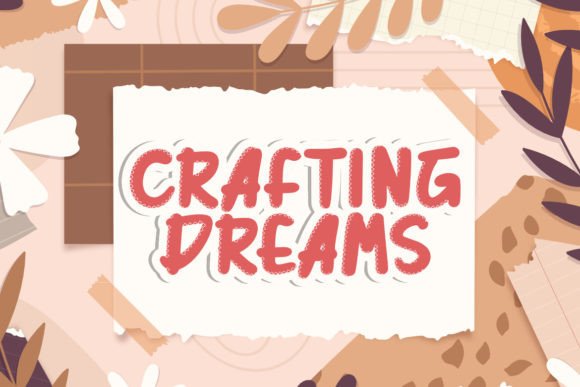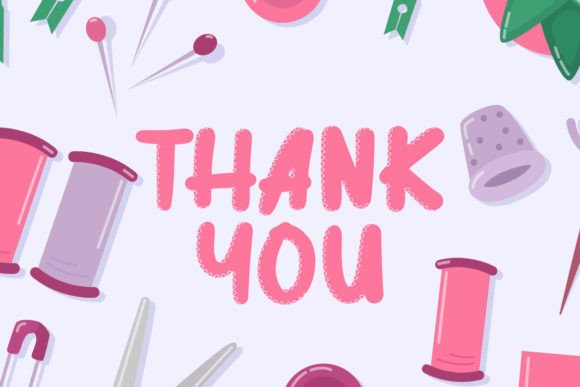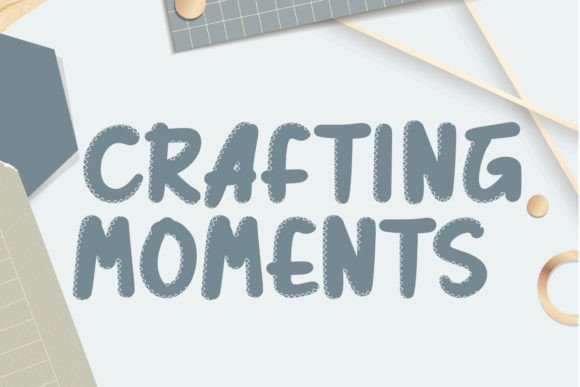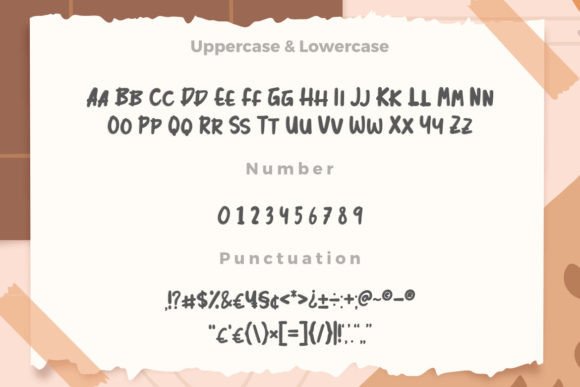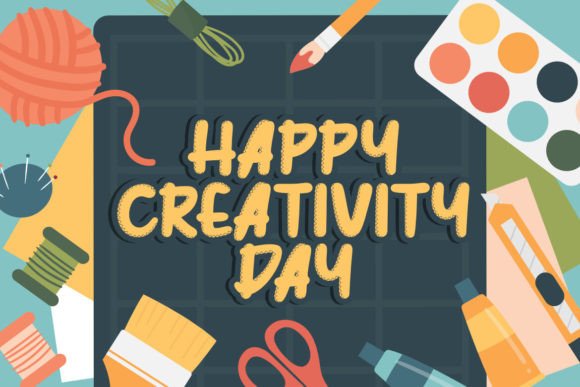
Introduction to Keenyo Font
**Keenyo Crafted Playful Font**, This font is made with a high premium quality level which you can use as flyers, quotes, posters, banners, packaging, merchandise, logotypes, and much more.
Key Features of Keenyo Font
Why Choose Keenyo Font?
Keenyo Font offers exceptional quality and versatility, making it a valuable addition to your design toolkit. Whether you’re creating for personal projects or commercial use, Keenyo Font delivers professional results.